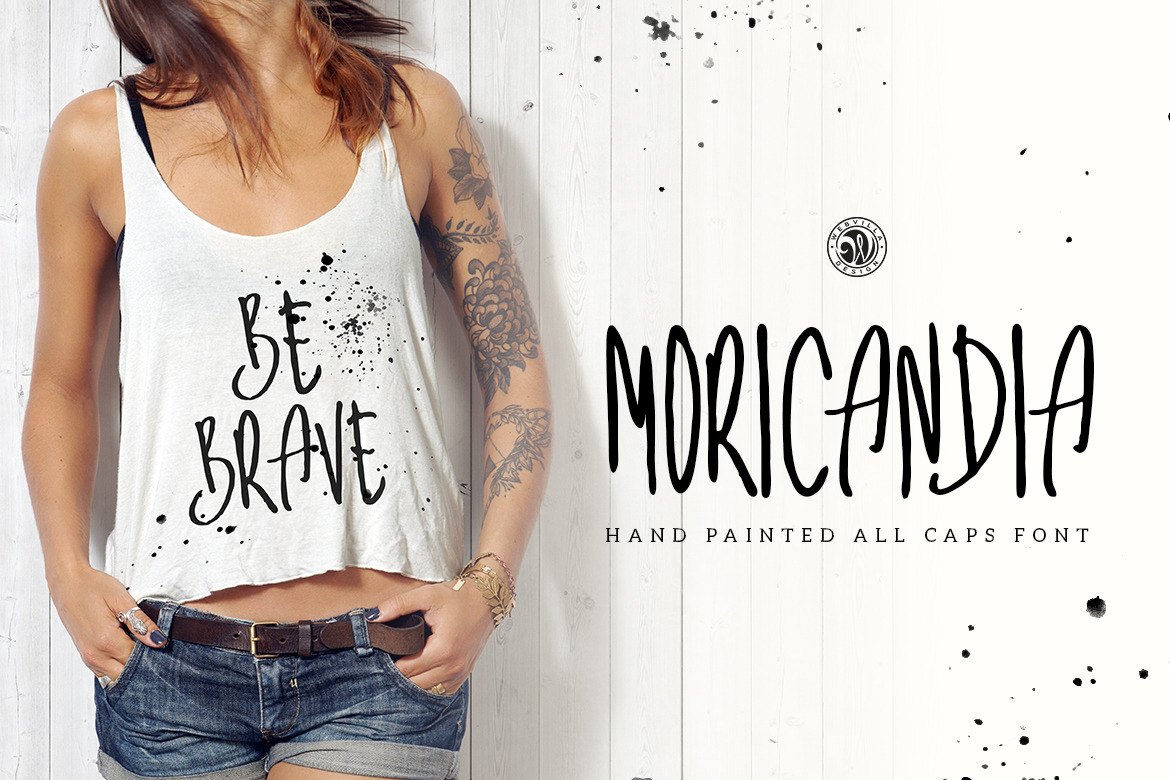
Moricandia Font
Moricandia font - hand lettering font. Ideal for invitations, logos, branding, blogs, handmade craft items, scrap booking, printed paper items and more.
- all caps font, numbers, punctuation